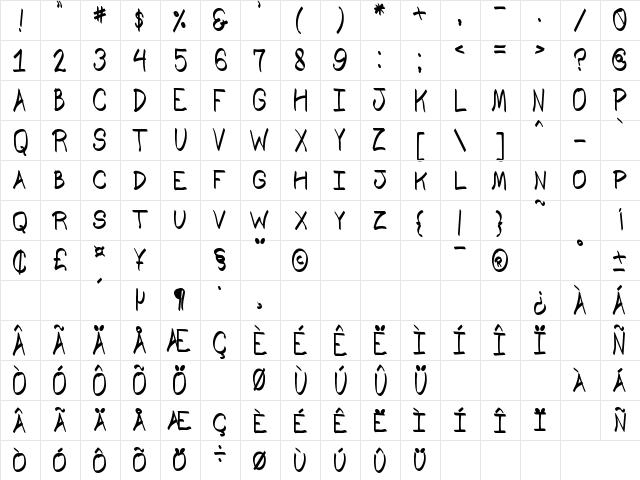
Comic's of South St Regular
Design Context for Comic's of South St Typeface
Comic's of South St trades formality for fun, with bouncy, characterful letterforms that bring warmth and energy to any project.
Font Pairing: Pairs well with a rounded or humanist sans for body copy, maintaining the friendly tone without relying on Comic's of South St to carry extended reading.
Pro Tip: Avoid using Comic's of South St for long passages of text — it works best for headlines, labels, and short calls to action.